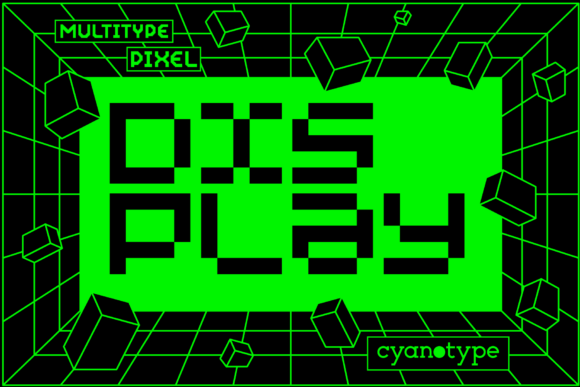
Journey into the realm of pixelated brilliance with MultiType Pixel Display Font, a captivating creation from the esteemed foundry, Cyanotype. This display font stands out as a true masterpiece, meticulously crafted with a unique pixelated aesthetic that adds a touch of modern distortion and trendy appeal to your designs.
MultiType Pixel Display Font is a visual symphony of sharp angles and captivating curves, designed to command attention and make a lasting impression. Each letterform is a work of art, carefully shaped with a distinct pixelated charm that evokes a sense of digital nostalgia. The font's sharp edges exude a bold and confident personality, while its pixelated texture adds a touch of playful retro charm.
As a display font, MultiType Pixel Display Font excels in creating captivating headlines, eye-catching logos, and impactful social media graphics. Its bold and distinctive appearance ensures that your words will never go unnoticed, leaving an indelible mark on the minds of your audience. Unleash your creativity and experiment with different colors, sizes, and effects to create designs that are truly extraordinary.
Dive into a world of endless possibilities with MultiType Pixel Display Font. Let your imagination soar as you craft stunning visuals that resonate with your audience. The font's versatility extends beyond digital creations; it also shines in print applications, adding a unique and unforgettable touch to posters, flyers, and packaging designs.
Embark on a creative adventure with MultiType Pixel Display Font. Its pixelated beauty and distinctive character will elevate your designs to new heights, leaving a lasting impression on all who encounter it. Embrace the power of pixels and unlock a world of creative possibilities.